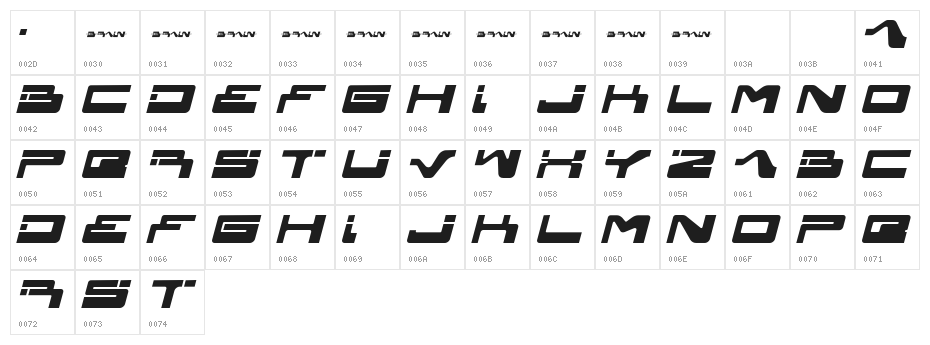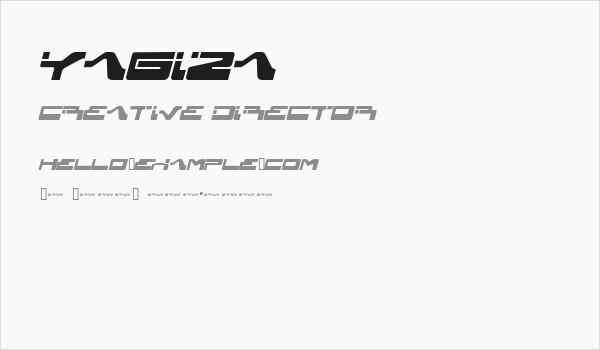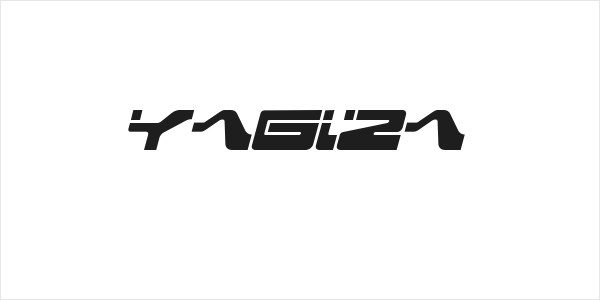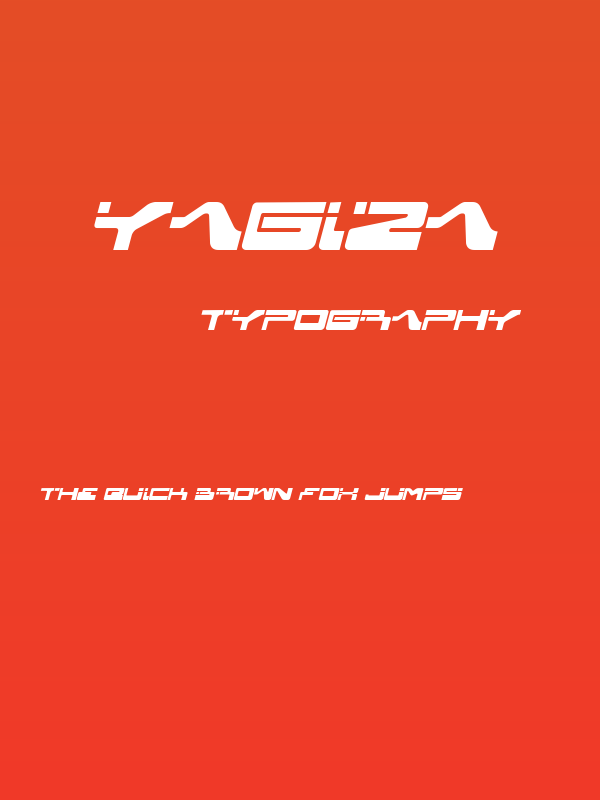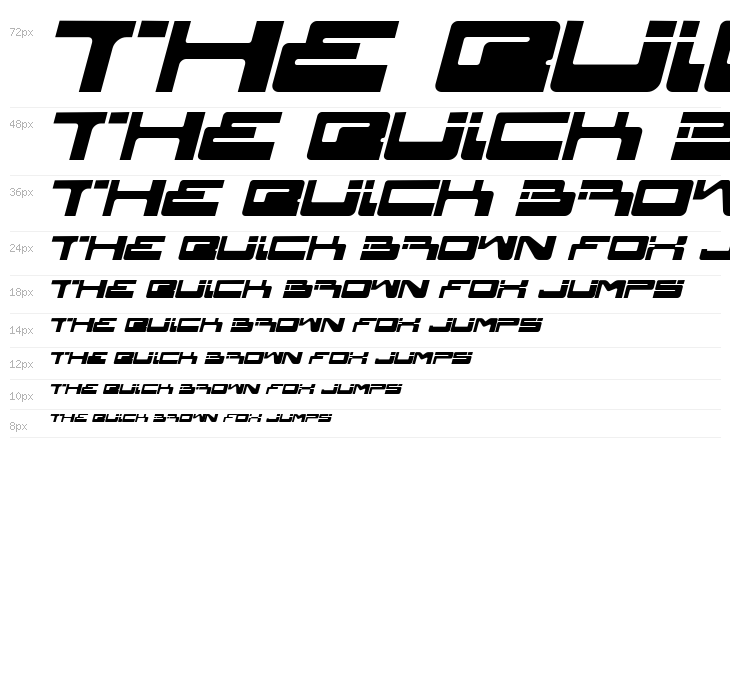
yagiza Font
yagiza Description
This font features a futuristic and angular design with a strong geometric influence. The characters are bold and have a distinct slant, giving them a dynamic and forward-moving appearance. The uppercase letters are particularly striking, with sharp edges and a sense of motion. The lowercase letters maintain the same angular style, ensuring consistency across the typeface. The numbers and special characters are designed to match the overall aesthetic, providing a cohesive look. This font is ideal for projects that require a modern and edgy feel, such as technology branding or sci-fi themed designs.
| Proposed Projects | Ideal for technology branding, sci-fi themed designs, video game titles, and modern posters. |